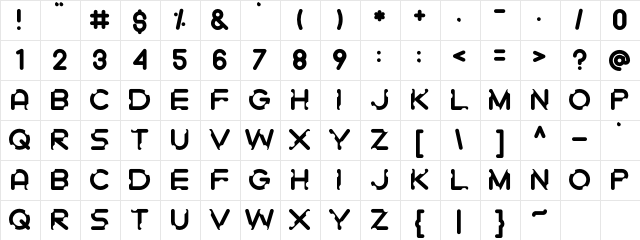
Gigigit Font Regular
Designer: Muhammad Syafiq Azman
Design Context for Gigigit Font
Gigigit Font is a composed and adaptable typeface that performs quietly and consistently across a wide range of design contexts.